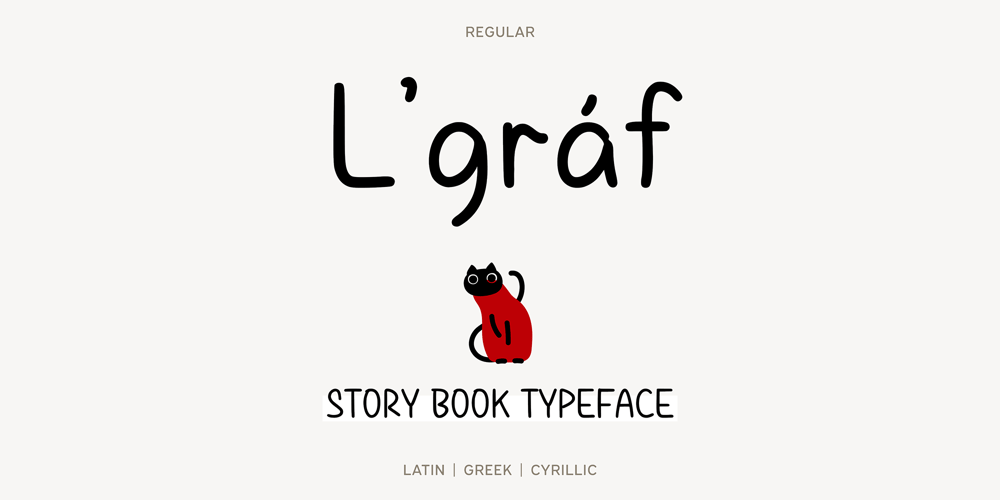
Lgraf
Lgraf font
Lgraf Font Family was designed by Lucia Indriani and published by 103cia. Lgraf contains 5 styles and family package options. L’gráf font is a handwritten typeface with Sans Serif style. It has 29% introvert character with INFJ-T personality. All styles include Latin standards. Suitable for e-book journals, scrapbooks, illustrations and story books.Font include:Standard Latin [v1.002 – desktop license only] Extended Latin [v1.002] Greek [v1.002] Cyrillic [v1.002] LGC – Latin Greek Cyrillic [v1.003] Note: Update version 1.002: There are minor changes to the glyphs b, d, g, p, q and smaller number size. Update version 1.003: There is a minor change to the glyph P. Additional Punctuation only available for complete family (LGC).